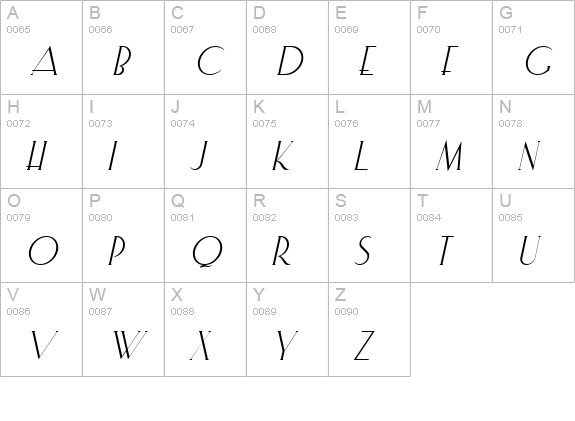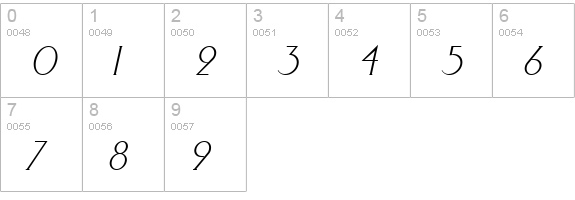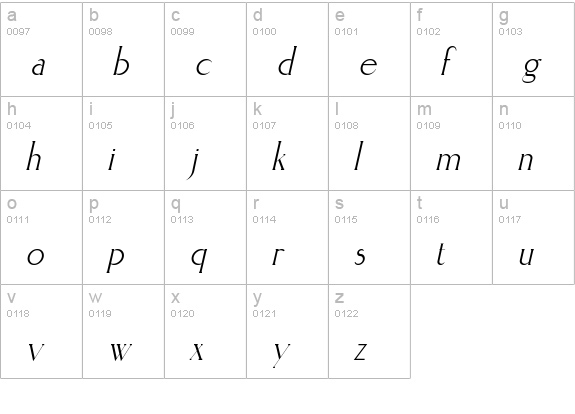
Elisia Italic is a distinctive, italic variant in the Elisia typeface family \xE2\x80\x94 well suited to design and typography projects.
Introducing Elisia Italic font, a sleek and sophisticated typeface that exudes elegance and charm. With its graceful curves and stylish letterforms, Elisia Italic is perfect for adding a touch of class to any design project. Whether you're creating invitations, branding materials, or editorial layouts, this font is sure to make a lasting impression. What's even better is that Elisia Italic is available for free download at FontsMarket.com. Yes, you read that right – you can get your hands on this exquisite font without having to spend a dime. So why wait? Elevate your designs with Elisia Italic today and let your creativity shine!